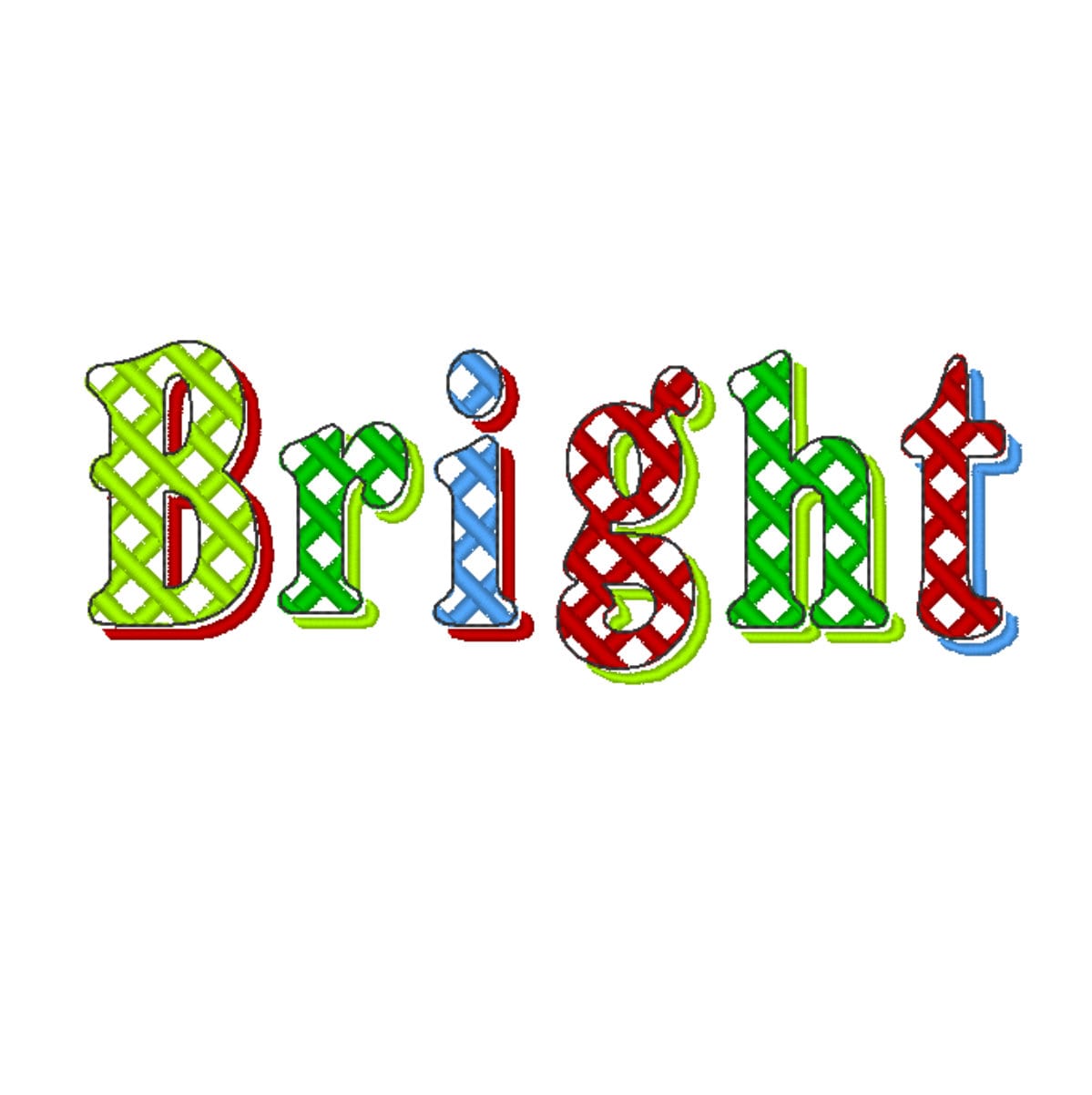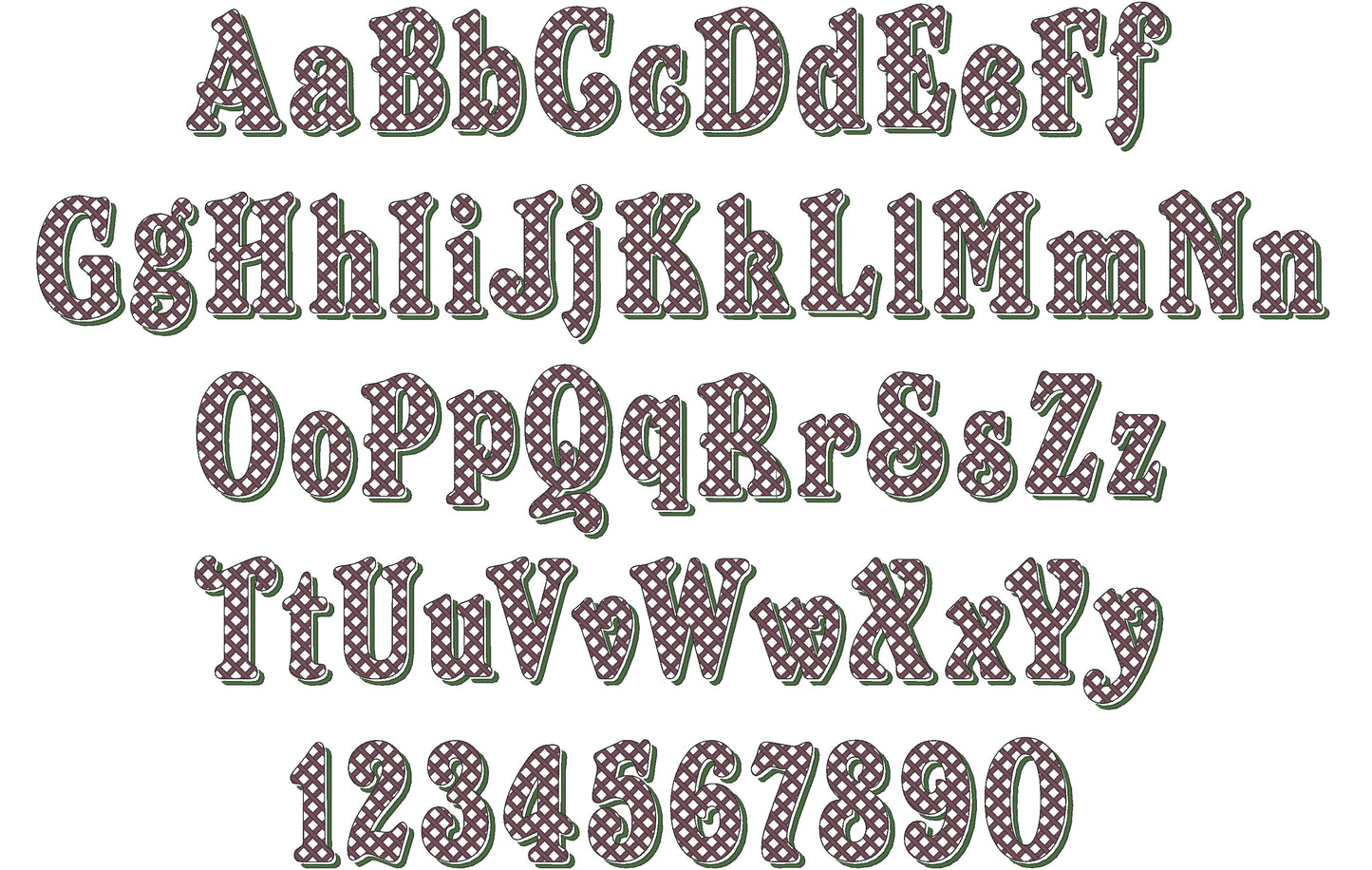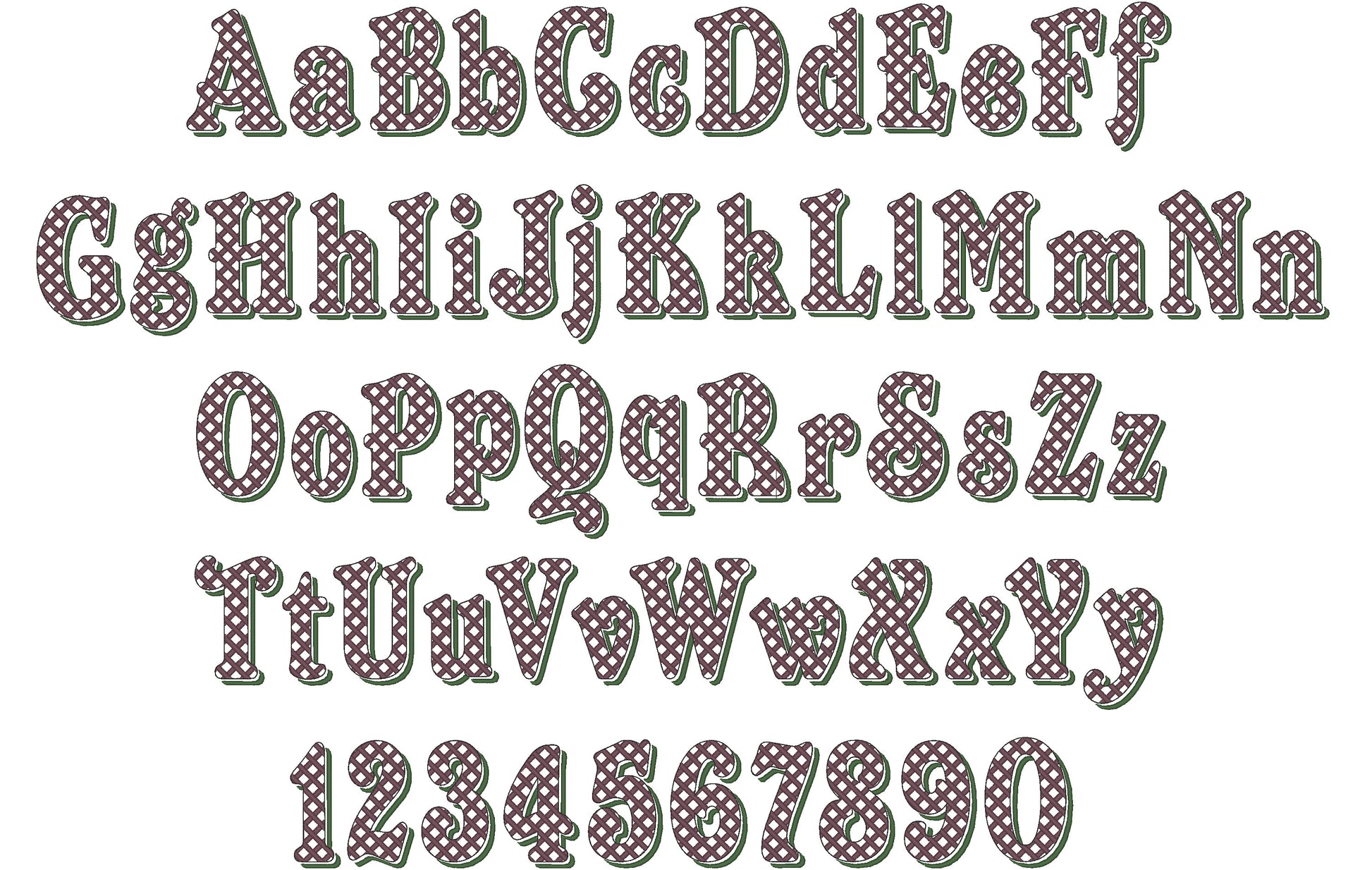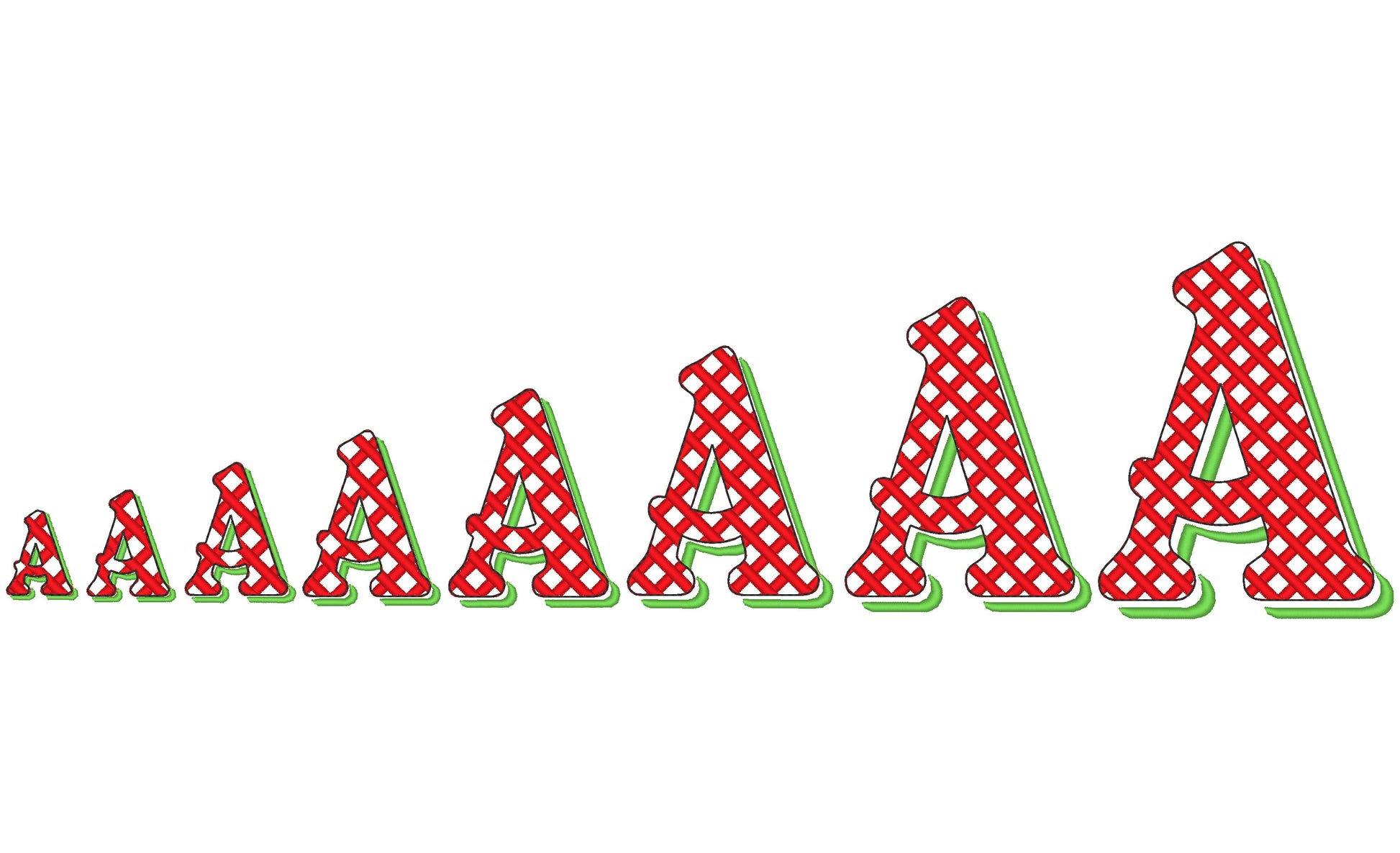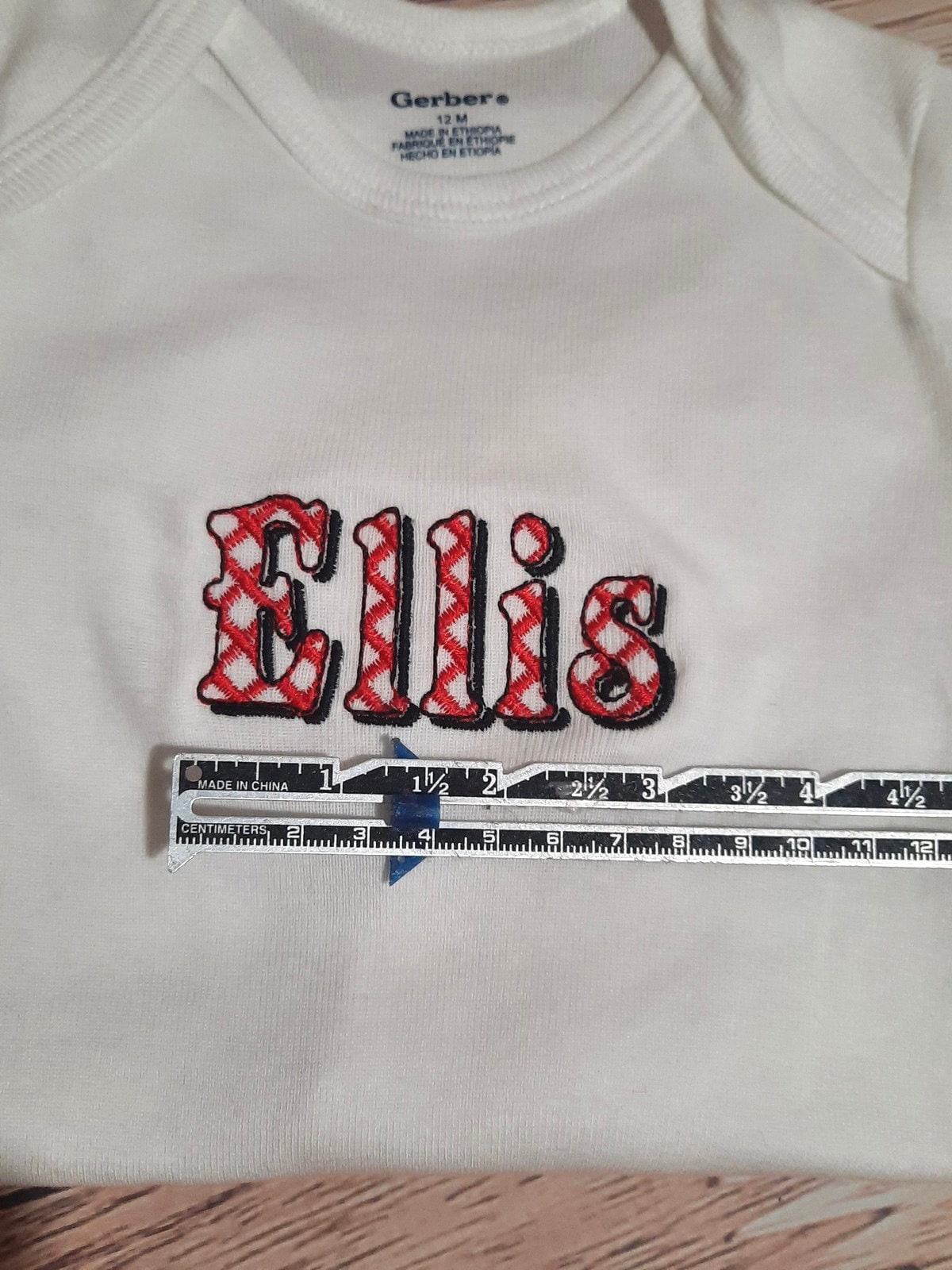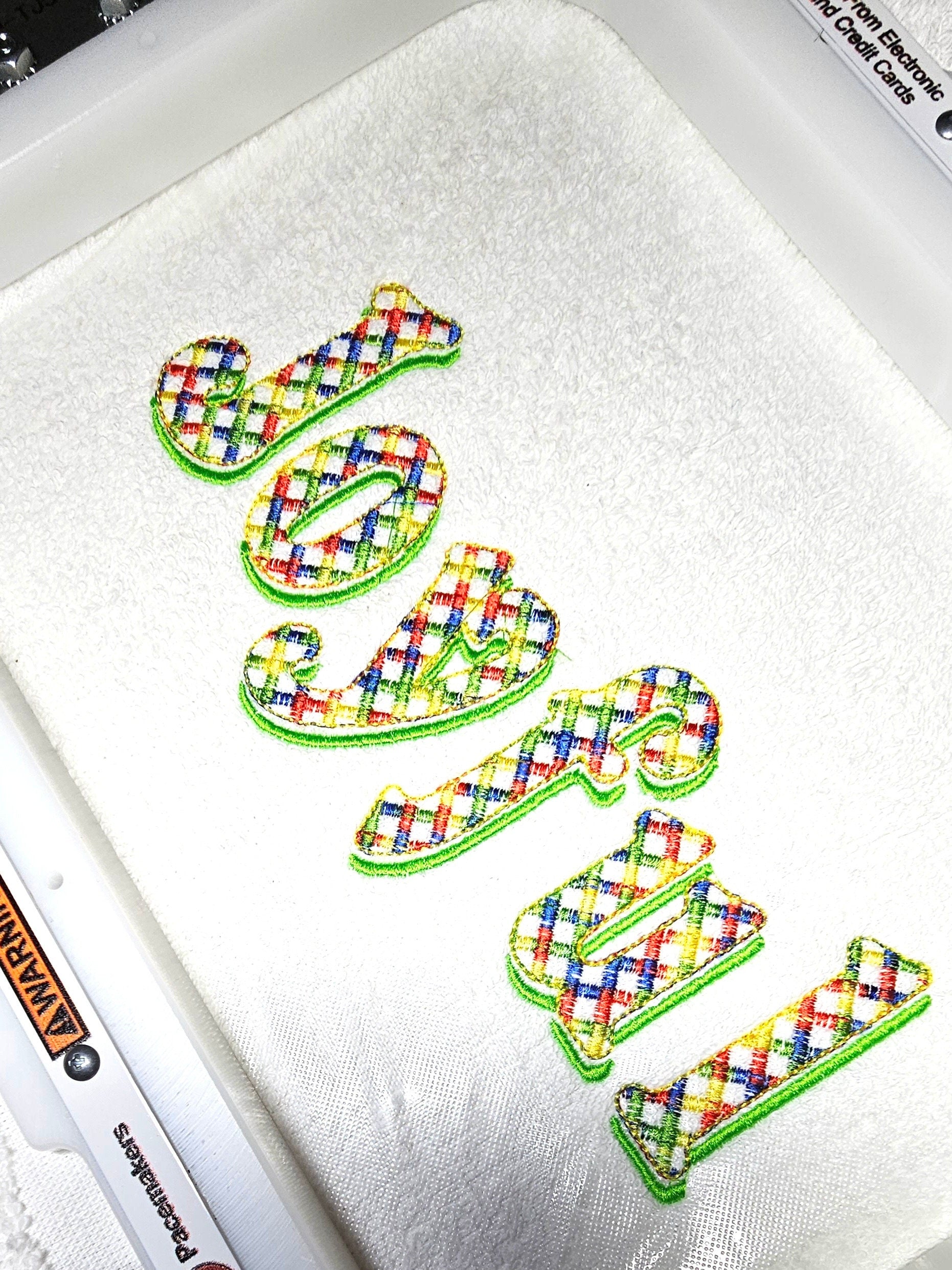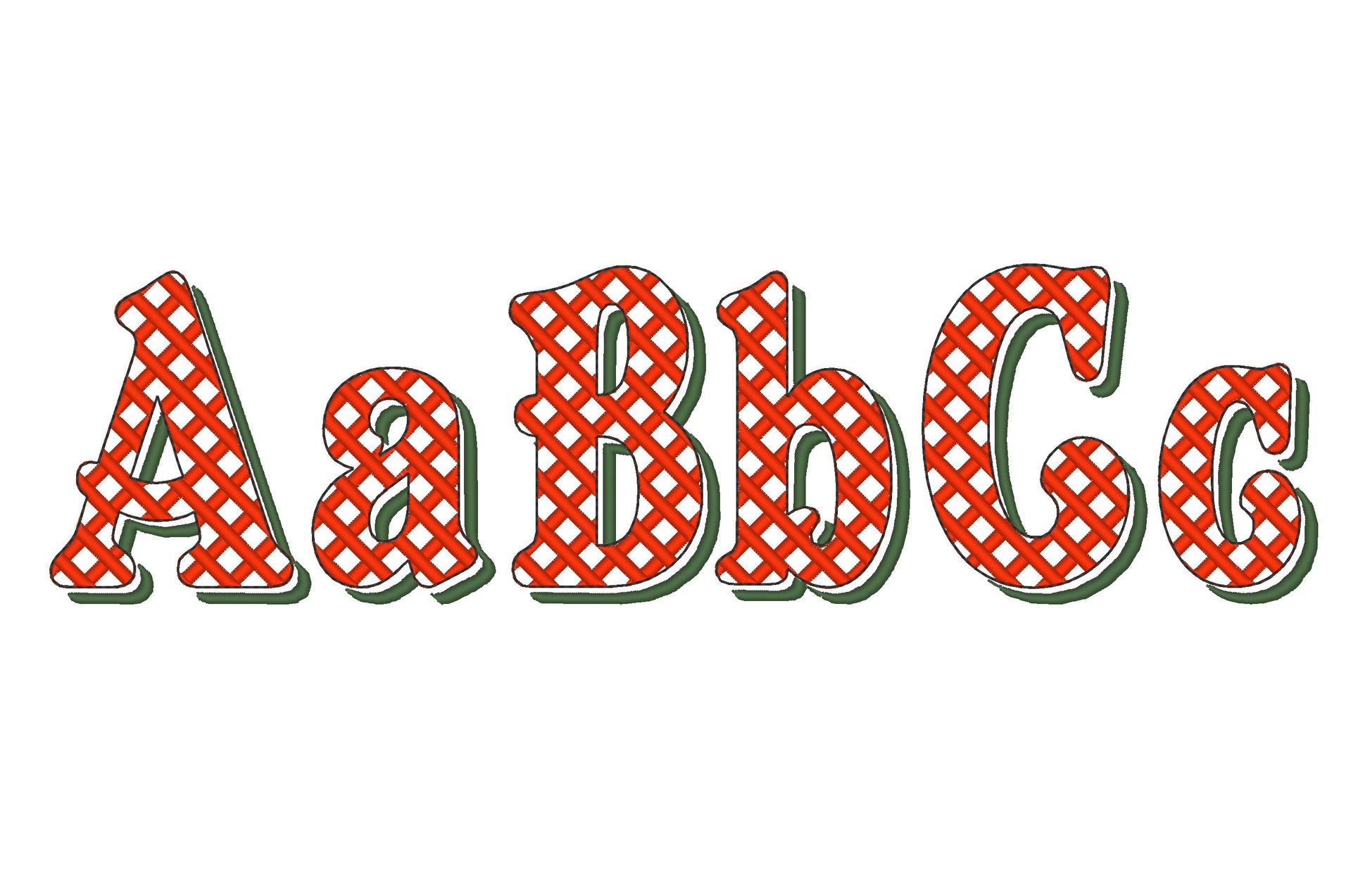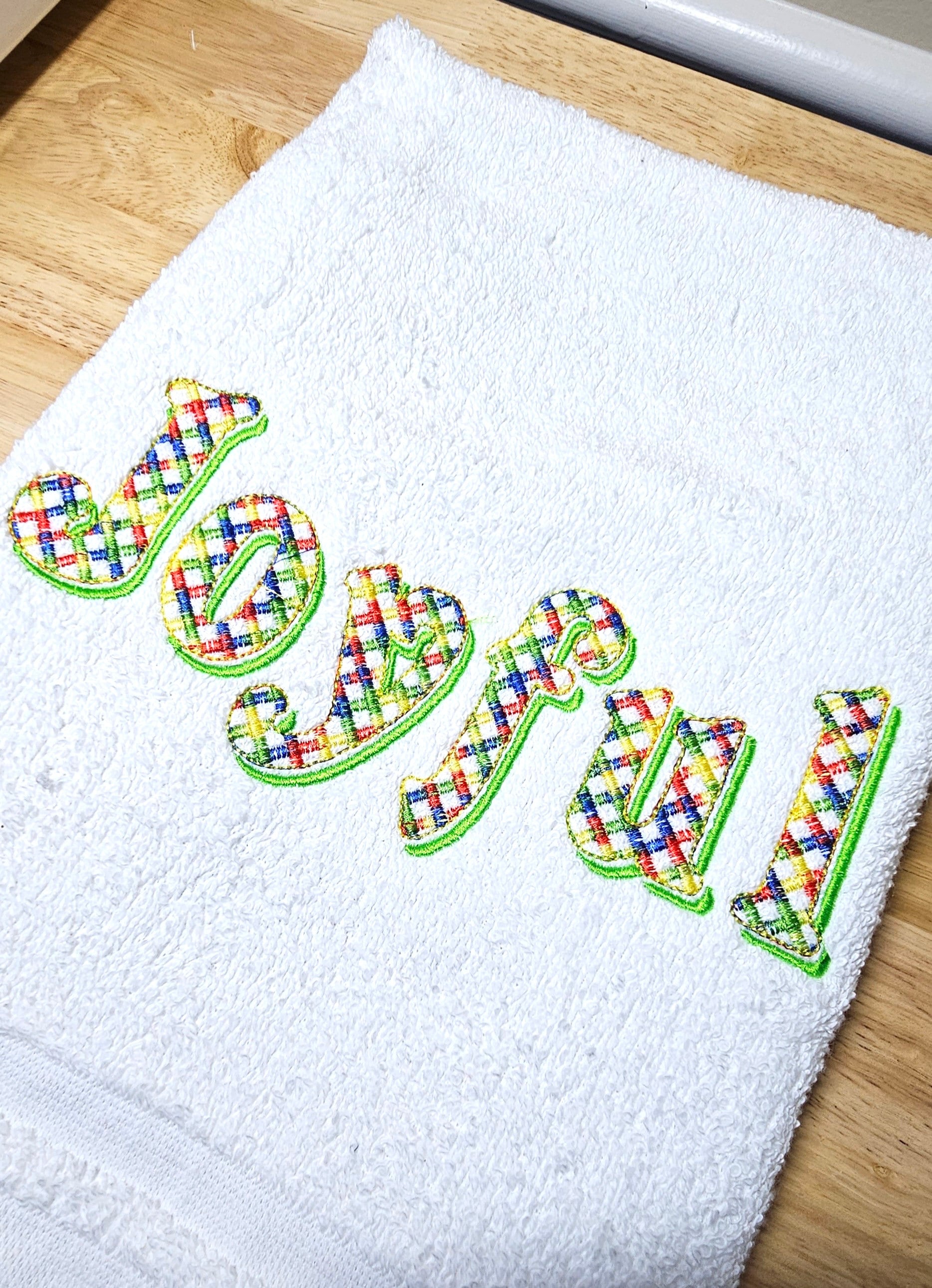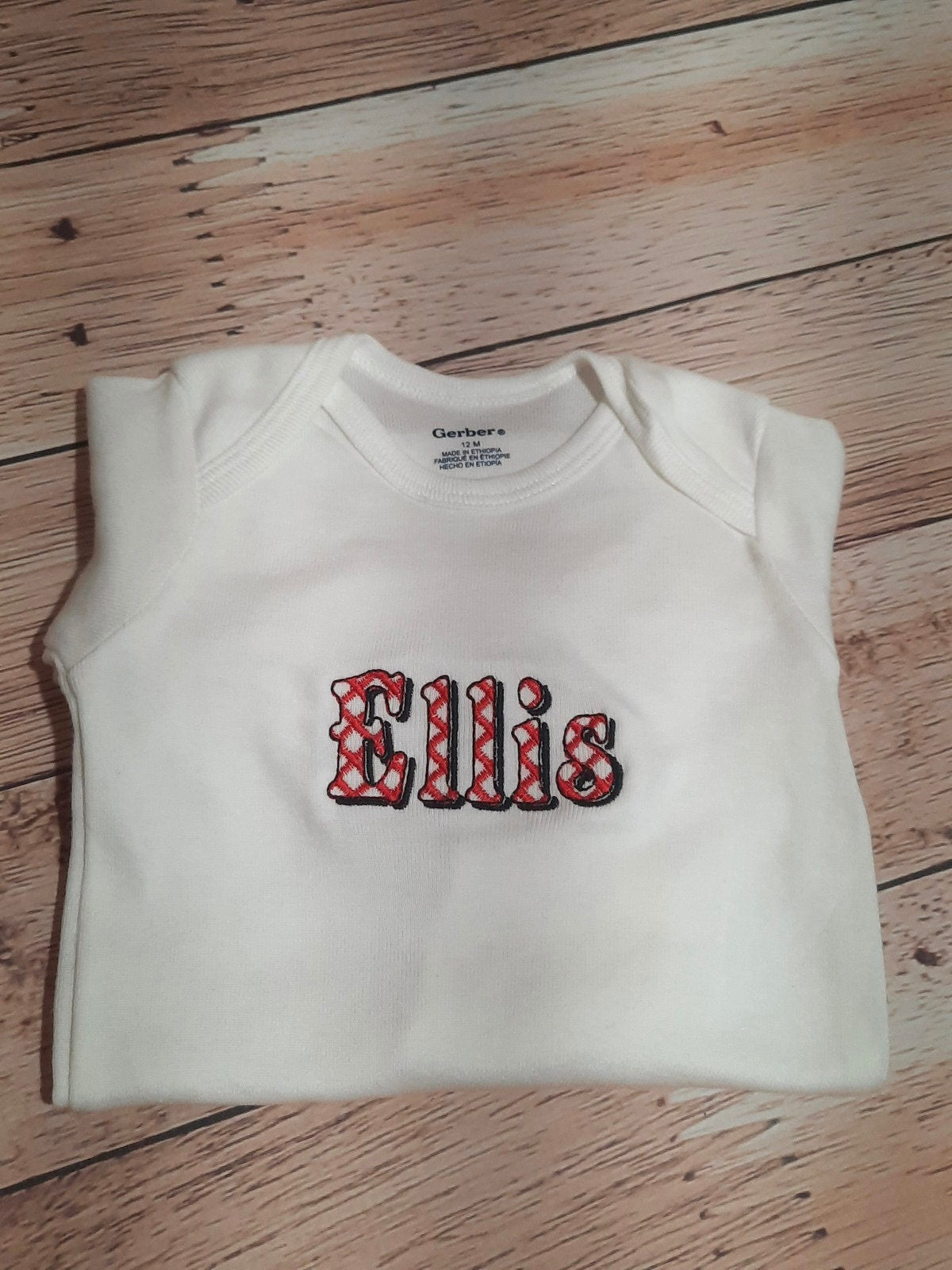
Or click to open the linkA Christmas shadow font with a checkered pattern in light stitching, so the fabric shows through. Cozy for stockings, holiday shirts and names.
Uppercase and lowercase letters and numbers 0 to 9 in eight sizes: 0.9, 1.1, 1.4, 1.8, 2.2, 2.7, 3.2 and 3.8 inches.